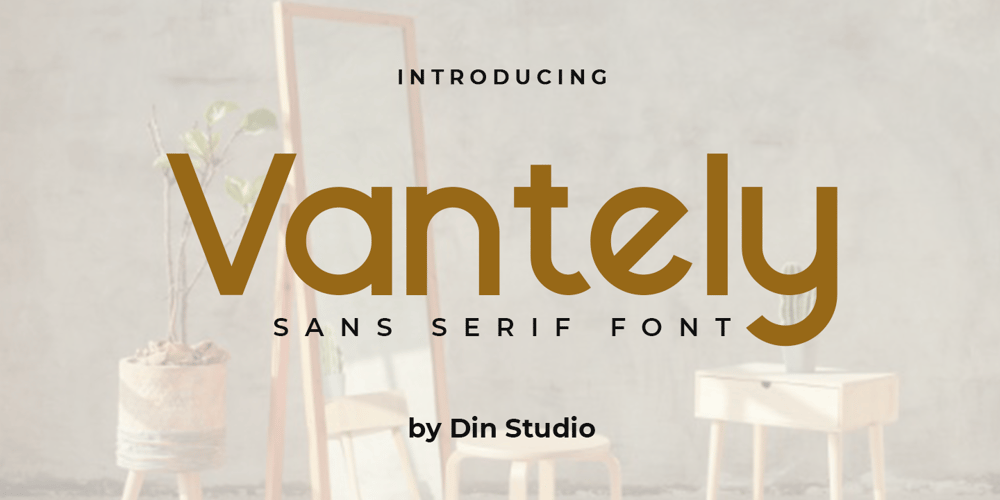
Vantely Font Family was designed by Donis Miftahudin and published by Din Studio. Vantely contains 1 styles and family package options. Vantely is a modern sans serif font. Made for any professional project branding. It is perfect for printing, branding and quotes. Every letter has a unique and beautiful touch.Includes:Vantely (OTF)Features: PUA Encoded Multilingual Support Numerals and Punctuation Thank you for downloading premium fonts from Din Studio